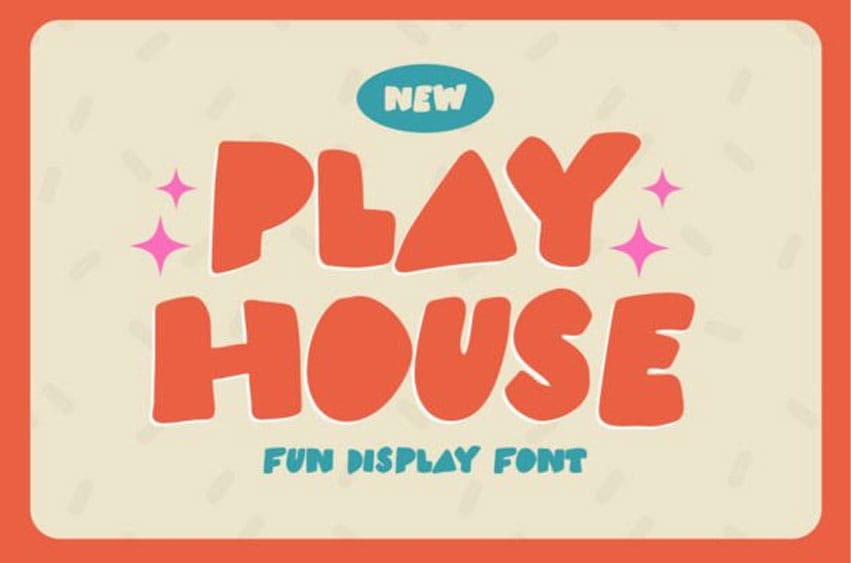
Play House Font is a bold, hand-drawn display font that has a fun character.
This font is perfect for anyone looking for a fun font for headlines, birthdays, children’s books, etc.